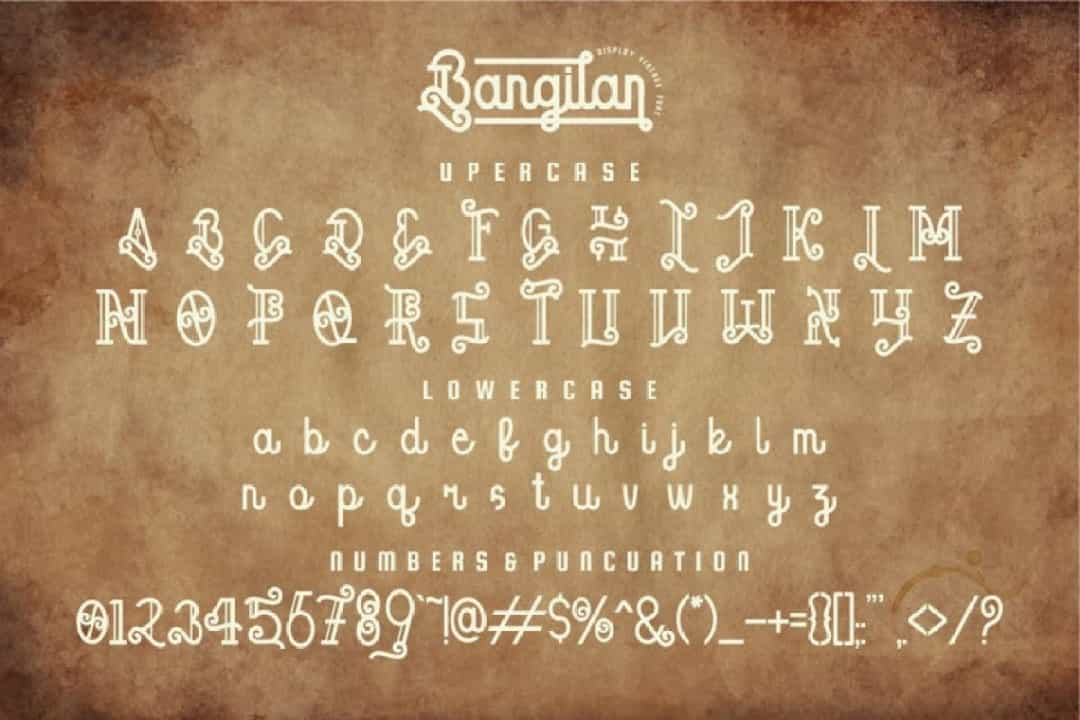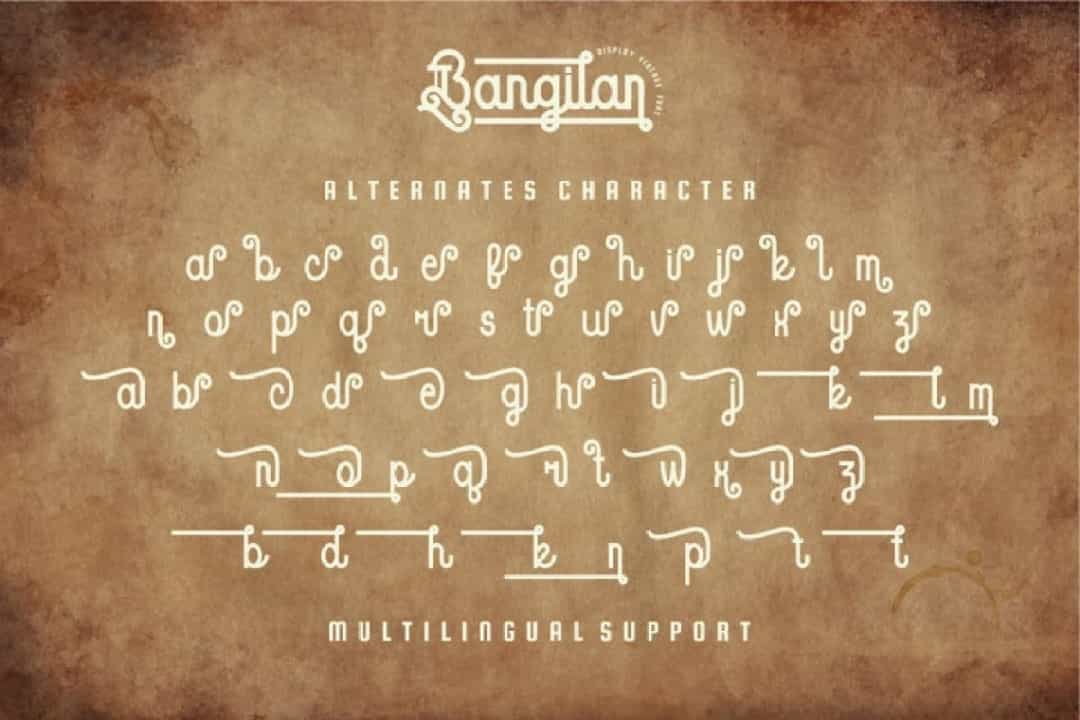
Discover Bangilan Font, part of the Display Script Monoline Vintage Personal collection—a versatile and unique font perfect for adding a personal touch to your projects. Download it for free and enjoy crafting designs with style, from invitations to social media posts. This font is available exclusively for personal use, giving you the freedom to create without limits. Unlock your creativity with Bangilan Font today!
Bangilan Display Font is an impact and stylish monoline font with big capital letters to be used in logos, letters, invitations and labels and also can be used in formal styles like invitations. It is used in logos of books, magazines, greeting cards, wedding or anniversary cards, packaging, fashion, cosmetics, stationary, novel labels, and any other advertisement that may include the use of upper case lower case numbers and punctuations marks.